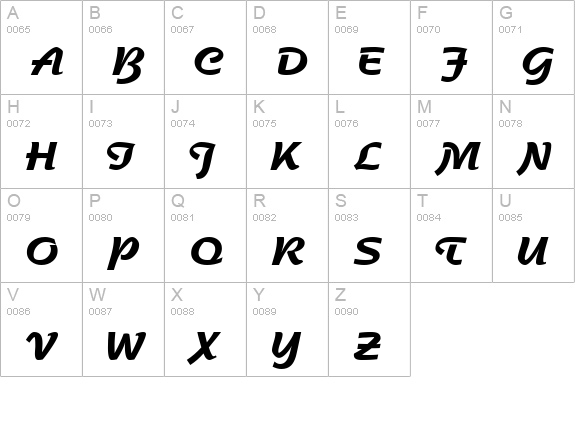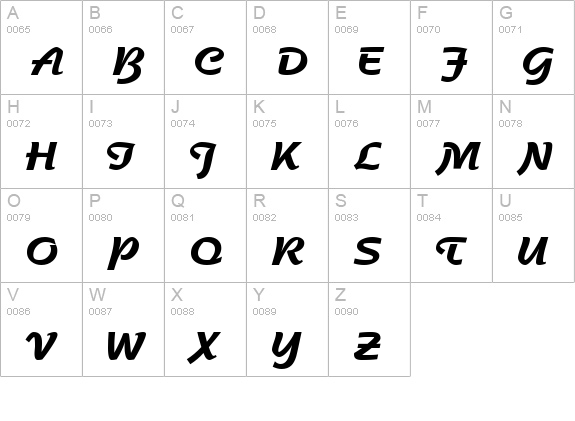
RossonSSK Bold Font Details
RossonSSK Bold is a strong, high-contrast variant in the RossonSSK typeface family \xE2\x80\x94 well suited to headlines, attention-grabbing titles, and strong calls-to-action.
RossonSSK Bold font is a striking and versatile typeface that exudes confidence and modernity. Its bold and dynamic letterforms make it perfect for headlines, posters, and branding projects that require a strong visual impact. The font's sleek and stylish design is sure to command attention and elevate any design project to the next level. What makes RossonSSK Bold font even more appealing is that it is available for free download at FontsMarket.com. This means that you can easily access this high-quality font without any cost, making it a valuable addition to your design toolkit. Whether you're a seasoned graphic designer or a novice looking to spice up your projects, RossonSSK Bold font is a must-have resource that will help you stand out from the crowd. Download it today and unleash your creativity!